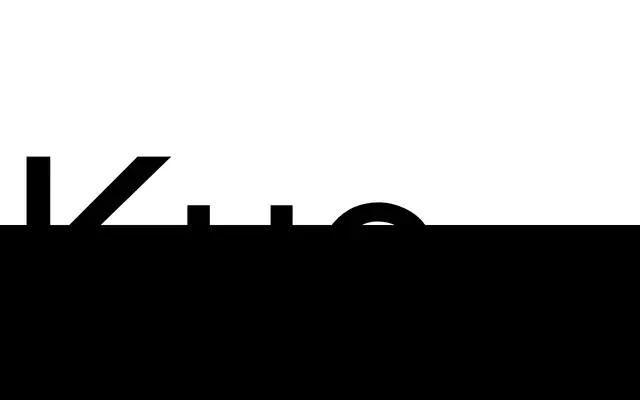
Kue
A variable geometric sans by Ondrej Jób with single-sided rounding and adjustable optical contrast across two styles.
Designed by Ondrej Jób and released under Setup Type, Kue is a conceptual geometric sans-serif built around mixed terminals and variable contrast, with a medium x-height suited to display settings. Two styles carry variable axes for contrast, width and optical weight, supported by three stylistic sets that include rounded alternates and short-slash variants. Coverage spans Basic Latin and Extended Latin across more than 100 languages with 428 glyphs total.
Described explicitly as a geometric sans-serif with variable contrast and mixed terminals; single-sided rounding and conceptual construction place it firmly in the geometric tradition.